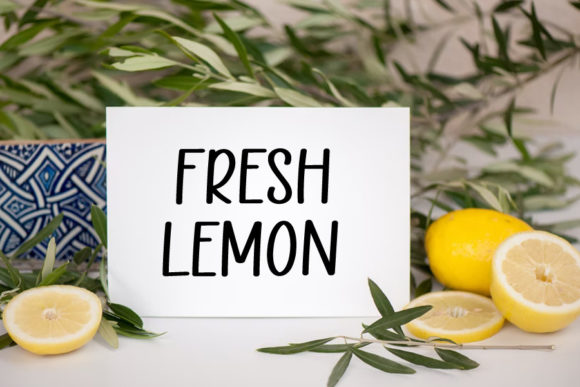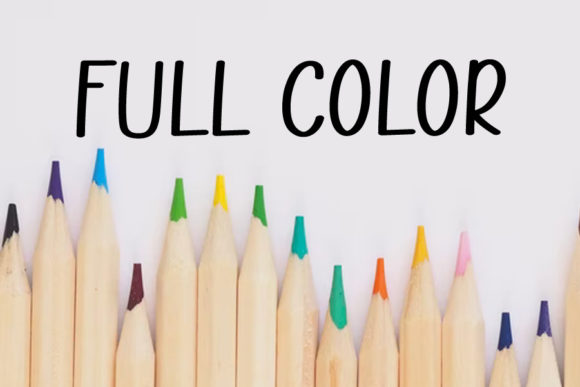
About Basecamp Font
Basecamp is a fresh and beautiful handwritten font, good for your design purposes such as Youtube banners, cover logo mockups, wedding invitations, cards, flyer, crafts. By using this font your business will flourish. Add it confidently and you won’t be disappointed.